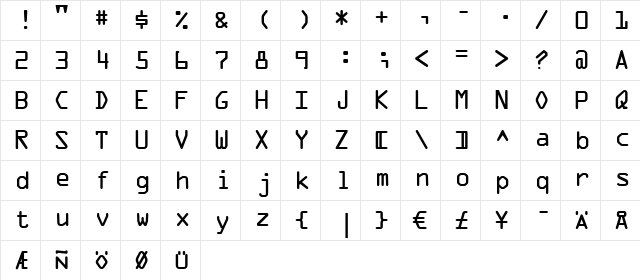
OCRA LT Regular
Design Context for OCRA LT Typeface
OCRA LT takes a measured approach to typography — its balanced proportions and neutral character make it a reliable workhorse for both digital and print work. Its slender proportions lend an understated elegance to any composition.